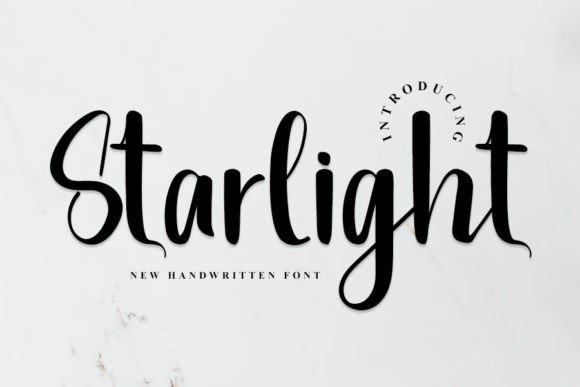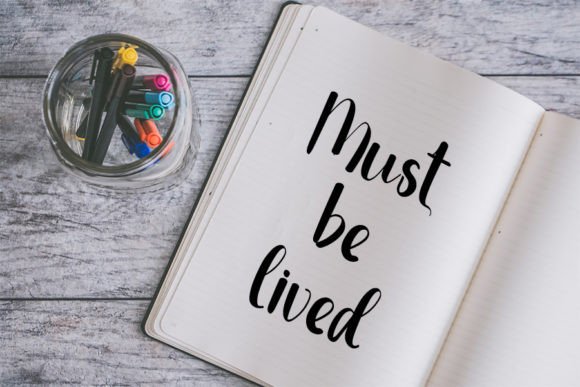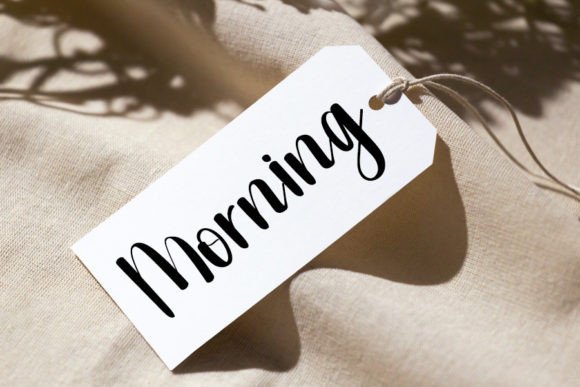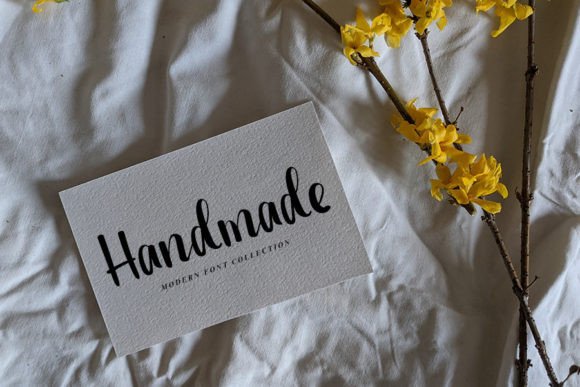
Add Elegant Charm with Starlight Font
The Starlight font is a neat and beautiful handwritten script characterized by its elegant touch and timeless style. This font is perfect for creatives looking to add sophistication and personality to their projects. Whether you’re designing logos, invitations, branding materials, or social media graphics, Starlight elevates your work with style and grace.
Perfect for Logos, Invitations, and Branding
The Starlight font fits perfectly in a variety of design contexts such as business branding, wedding invitations, greeting cards, product packaging, and digital content. Its clean and elegant strokes help your projects stand out with a refined and polished look.
A Handwritten Script with Distinct and Timeless Style
Each character in the Starlight font is carefully crafted to offer smooth flow and excellent readability. The font’s timeless design balances decorative flair with clarity, making it suitable for both headlines and body text in a variety of creative works.
Despite its elegant style, the Starlight font maintains great readability across different sizes. Whether used for large headings or smaller text elements, it offers balance between style and clarity, making it a versatile choice for many creative projects.
Make Your Designs Shine with Timeless Elegance
Typography plays a vital role in shaping the feel of your designs, and Starlight adds a distinct, timeless spirit. If you want to elevate your projects with a neat and elegant handwritten script, download the Starlightfont today and create spectacular, memorable visuals.